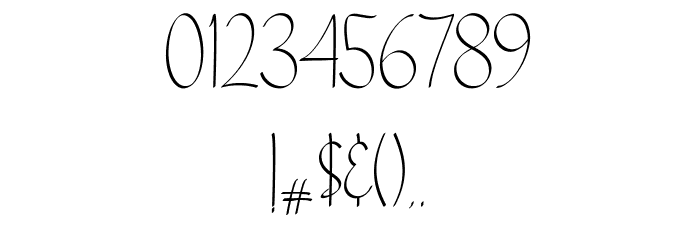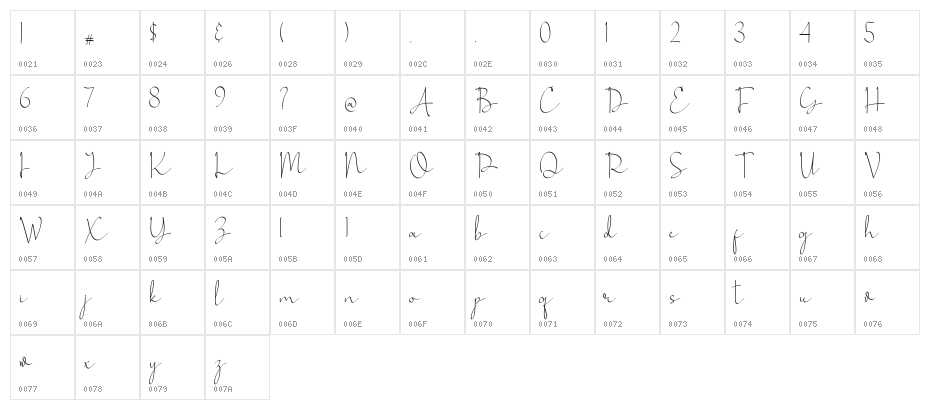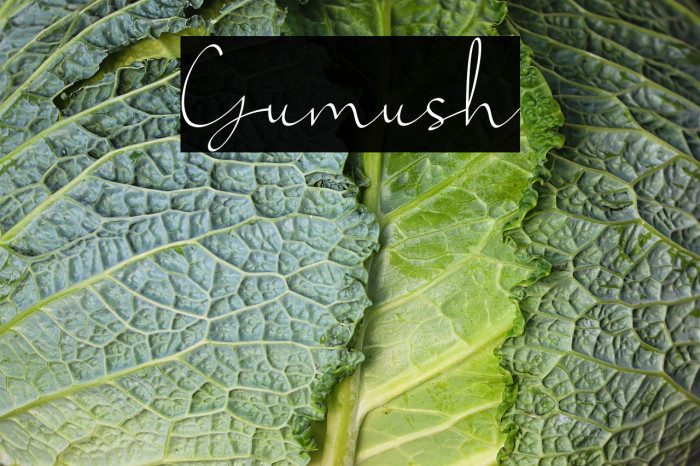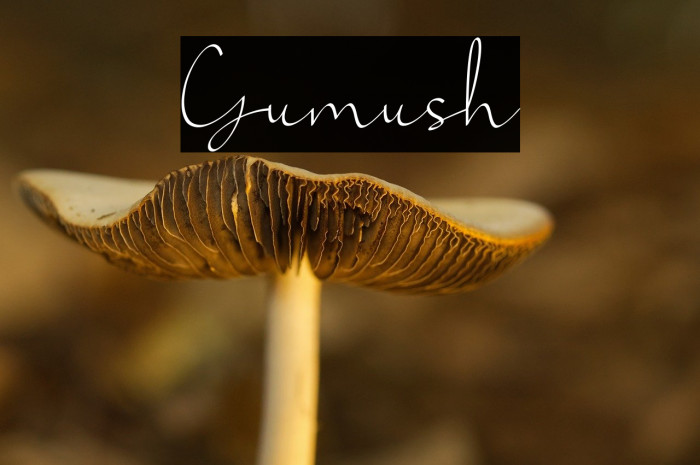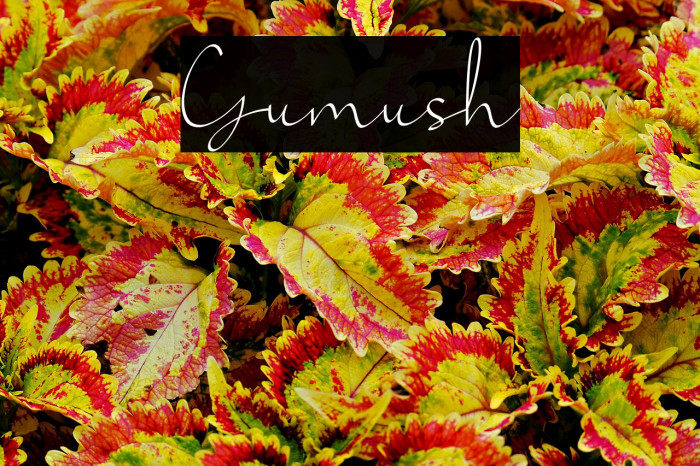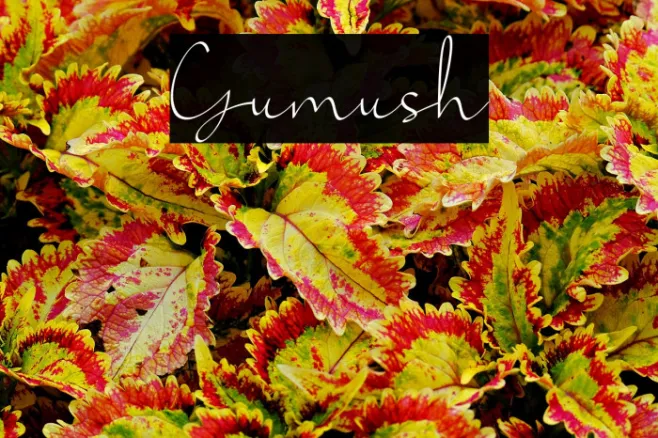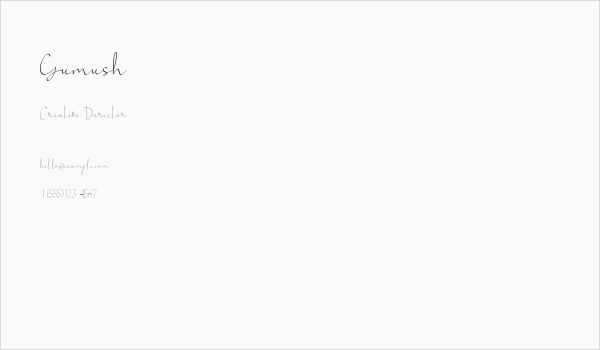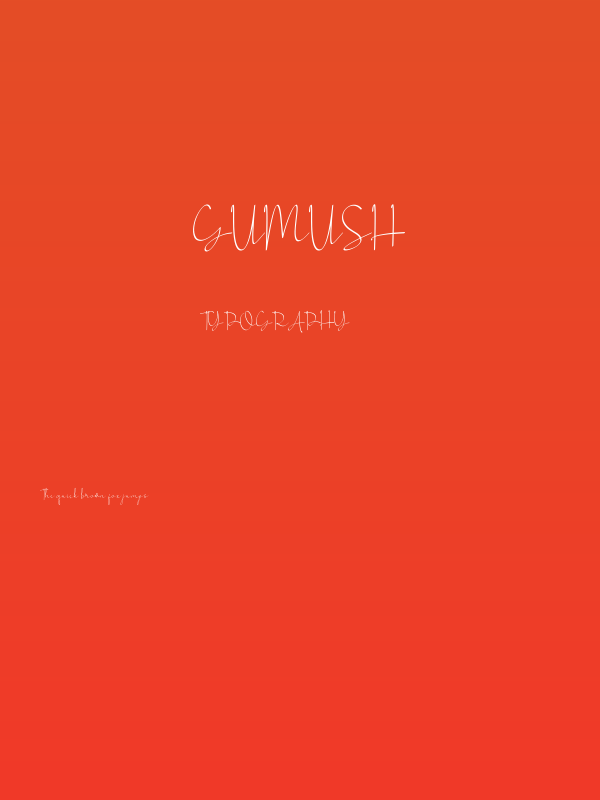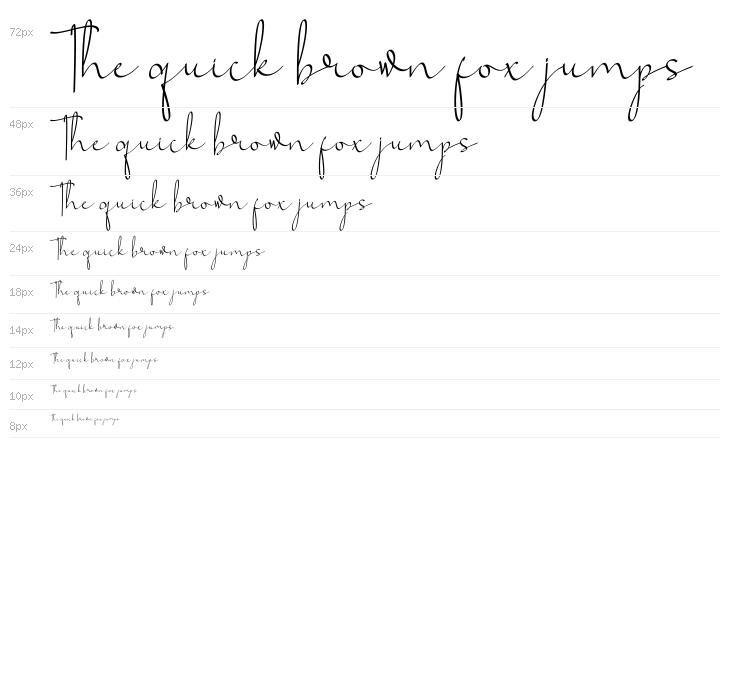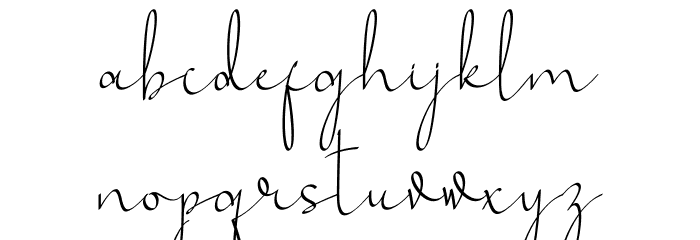
Gumush Font
Gumush Description
This elegant script font features a flowing, cursive style with delicate, thin strokes that convey a sense of grace and sophistication. The uppercase letters are slightly more ornate, with sweeping curves and loops, while the lowercase letters maintain a consistent fluidity. The numerals and special characters are designed to match the overall aesthetic, providing a cohesive look. This font is perfect for projects that require a touch of elegance and refinement, such as wedding invitations, formal event programs, or luxury branding.
| Proposed Projects | Ideal for wedding invitations, formal event programs, luxury branding, and elegant stationery. |